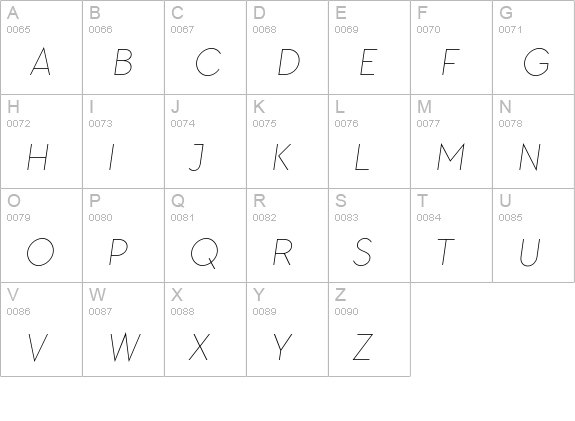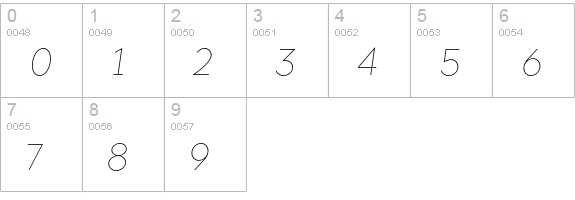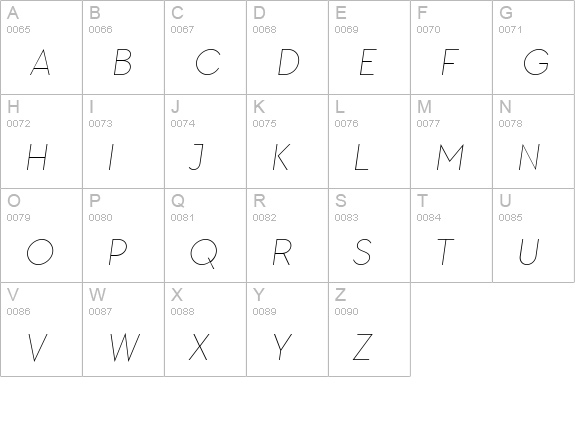
TT Chocolates Thin Italic Font Details
TT Chocolates Thin Italic is a delicate, low-contrast, italic variant in the TT typeface family \xE2\x80\x94 well suited to fashion editorial, minimal branding, and high-contrast display.
TT Chocolates Thin Italic font is a delicate and elegant typeface that exudes sophistication and style. Its slim and slanted design adds a touch of modernity to any project, making it perfect for use in fashion magazines, luxury branding, or high-end packaging. The thin strokes and subtle curves of this font create a sense of refinement and grace. What's even better is that TT Chocolates Thin Italic font is available for free download at FontsMarket.com! You can easily add this stunning typeface to your font collection without any cost, allowing you to elevate your designs without breaking the bank. Don't miss out on the opportunity to enhance your projects with this beautiful and versatile font. Download TT Chocolates Thin Italic today and take your designs to the next level!